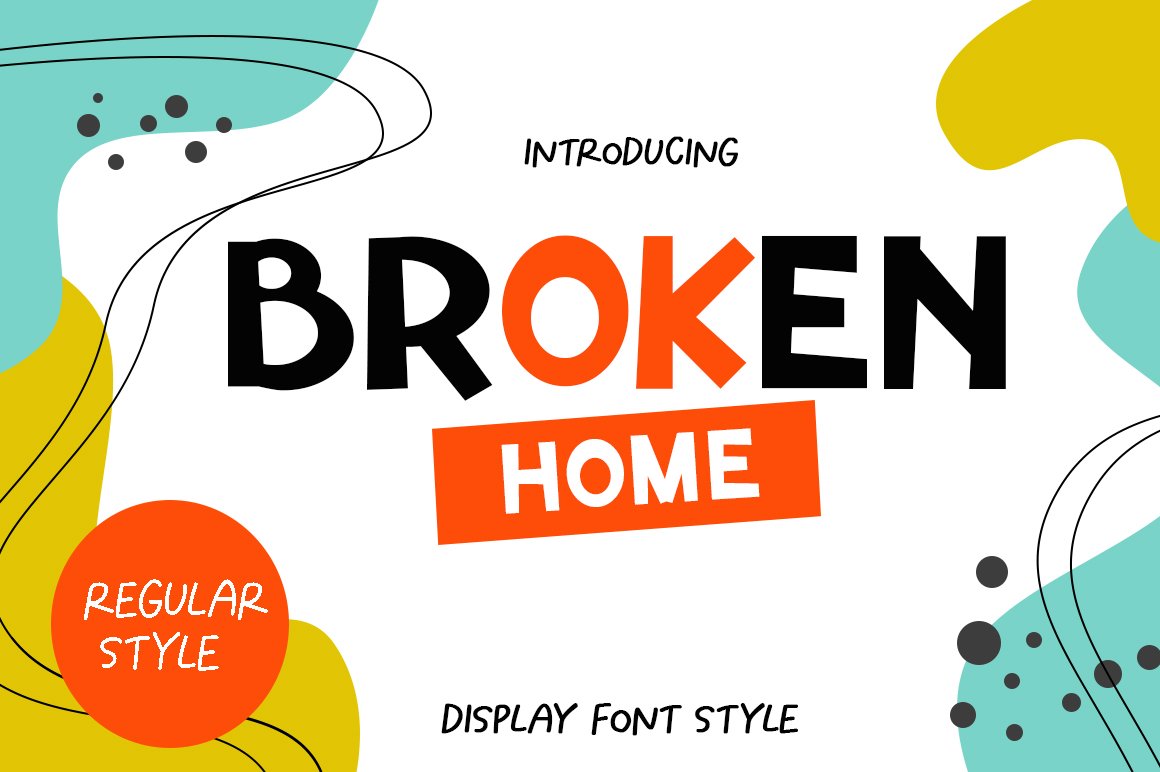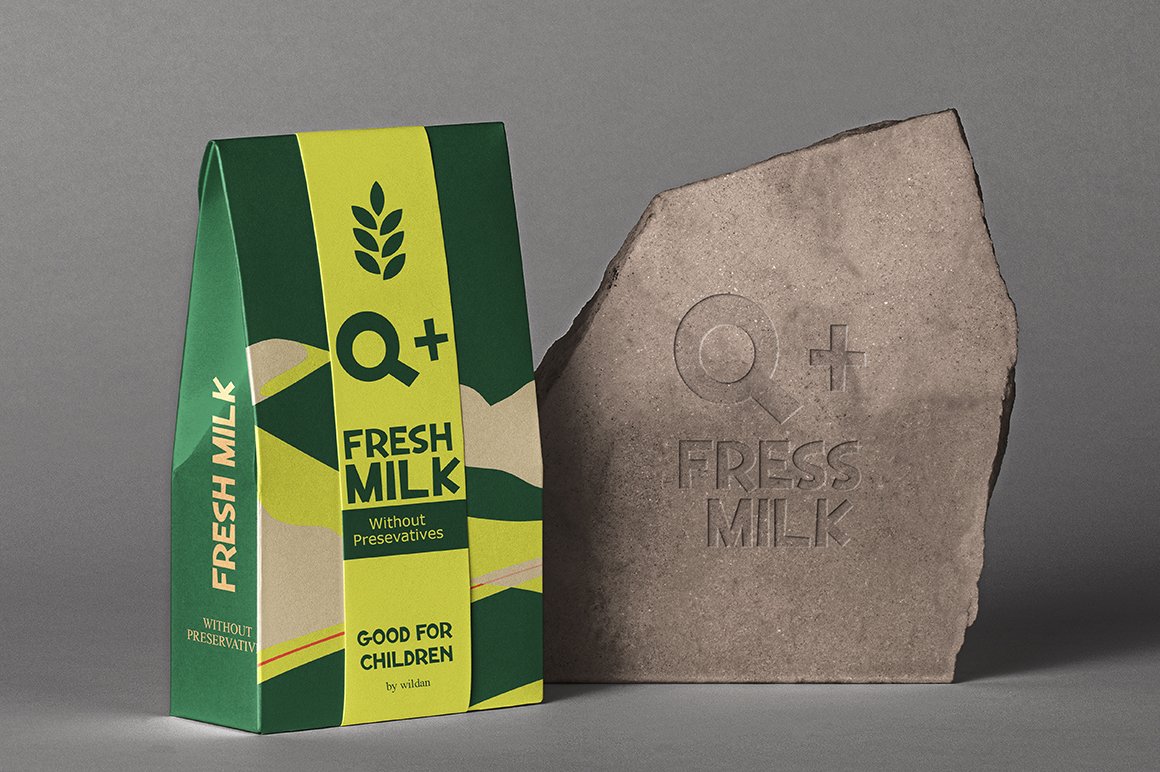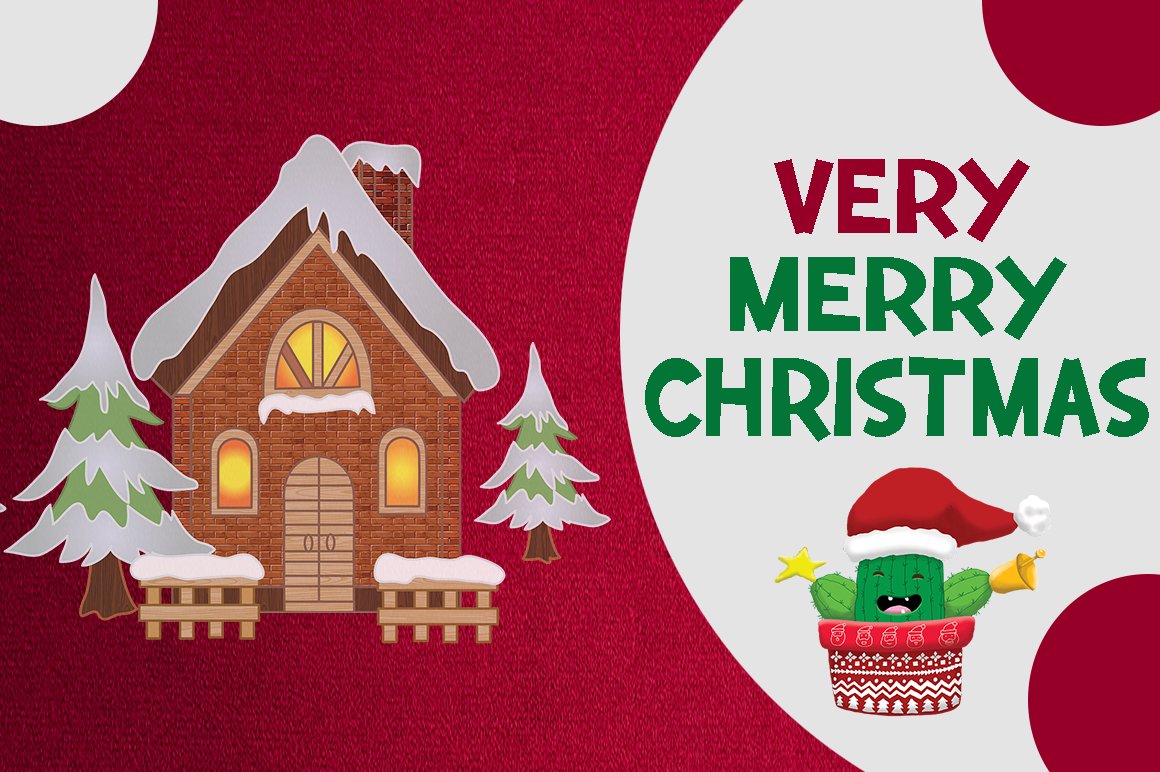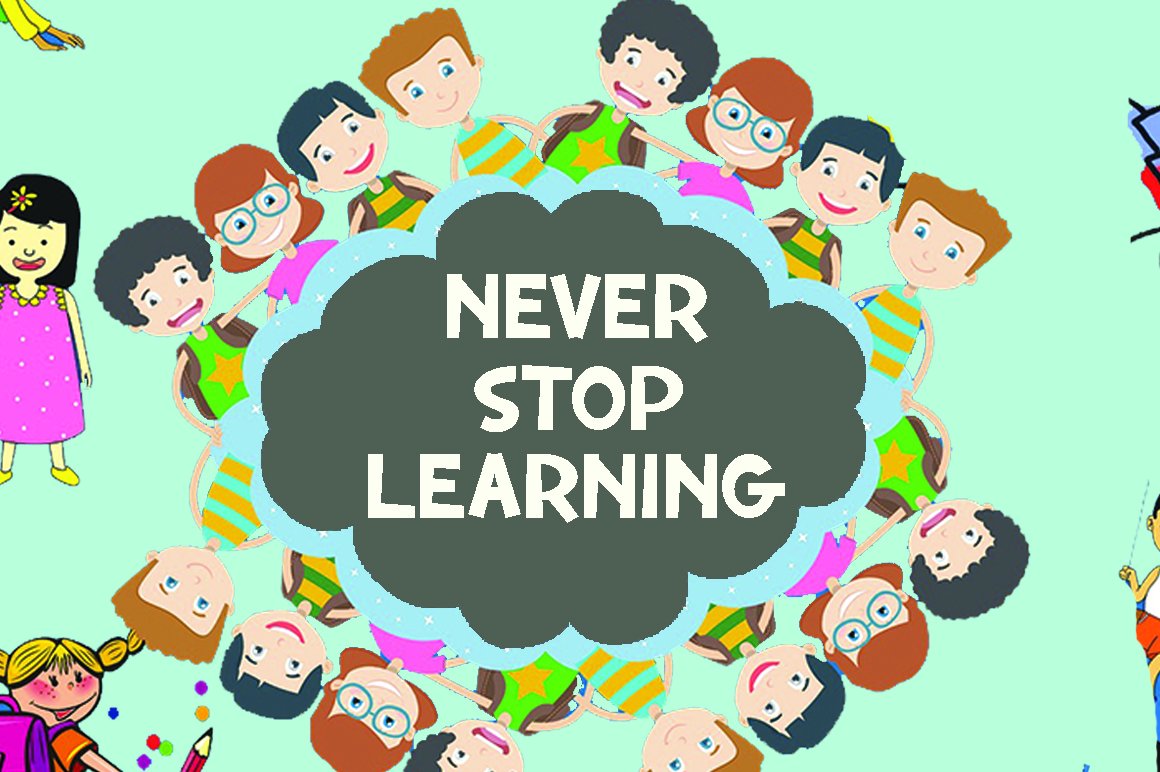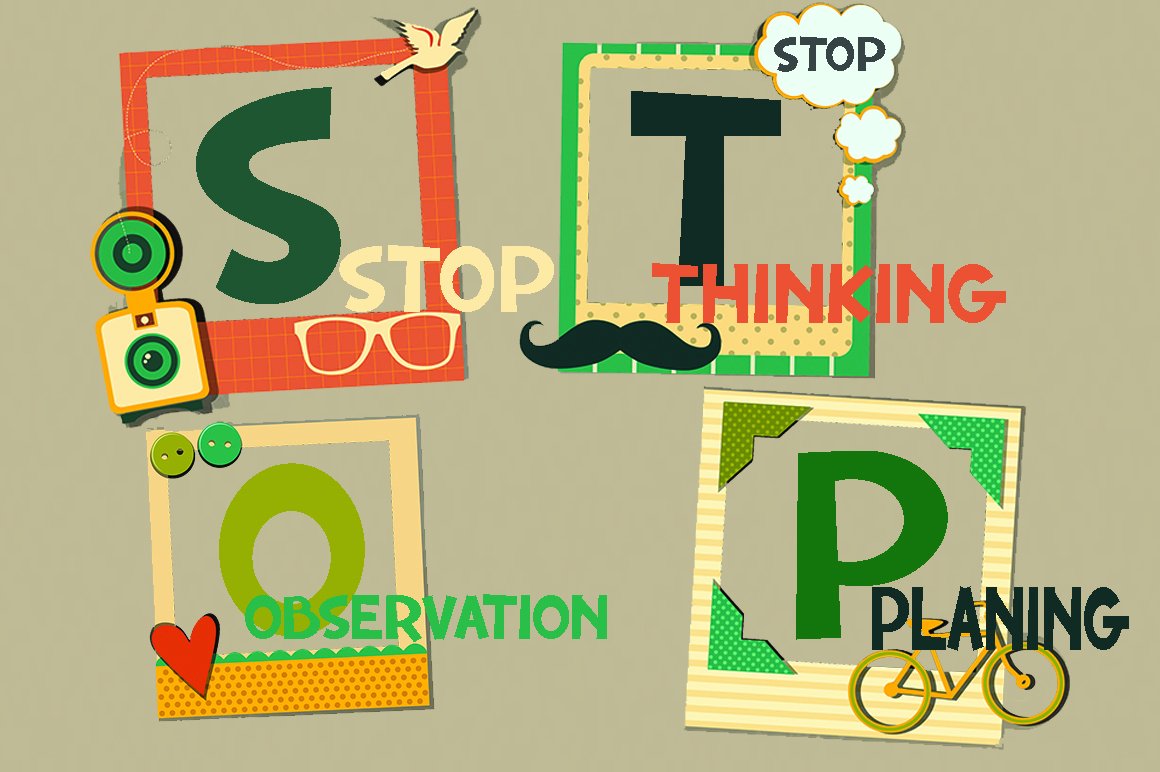
BROKEN HOME is a bold, playful display font with a distinctive stencil-like design that gives it an edgy, fragmented look. Its heavy weight and chunky letterforms make it perfect for attention-grabbing headlines, posters, or brands seeking a strong, unconventional style with a modern, urban vibe. This font works best in creative projects where a striking, impactful personality is desired.
BROKEN HOME Font
About BROKEN HOME Font